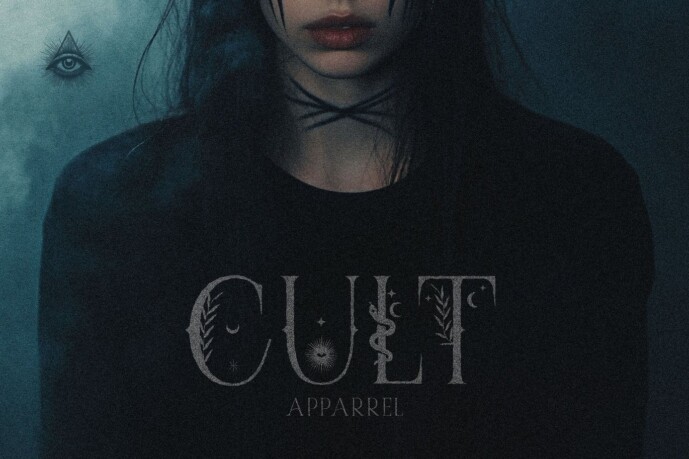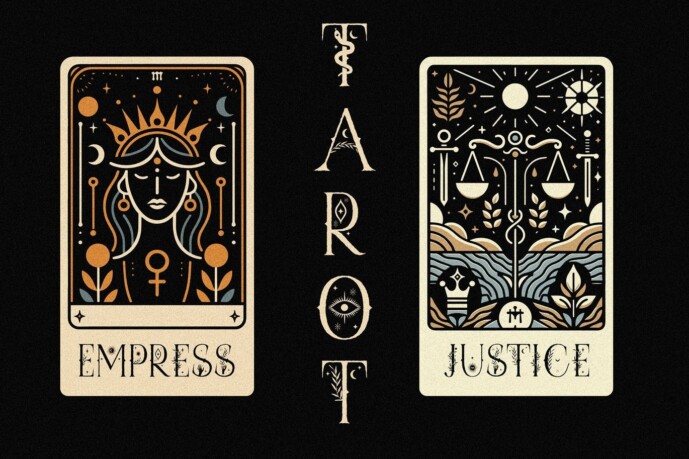
Illumina Font
Illumina Font, an esoteric display font with unique occult illustrations. It is a perfect font for all types of projects that require a mystical and magical touch. Additionally, the uppercase character set has alternates for each letter.